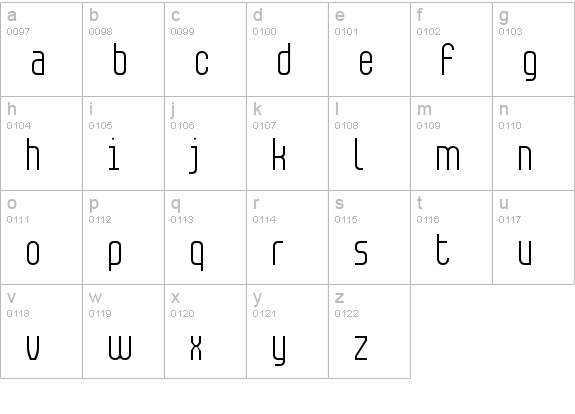
Mekanika font is a modern and edgy typeface that exudes a sense of industrial sophistication. With its sleek lines and geometric shapes, this font is perfect for creating bold and eye-catching designs. Mekanika is a versatile font that can be used for a variety of projects, from logos to posters to websites. What's even better is that Mekanika font is available for free download at FontsMarket.com. Whether you're a designer looking to add a unique touch to your work or a business owner in need of a fresh new look, Mekanika font is the perfect choice. Download it today and let your creativity shine with this stunning typeface.